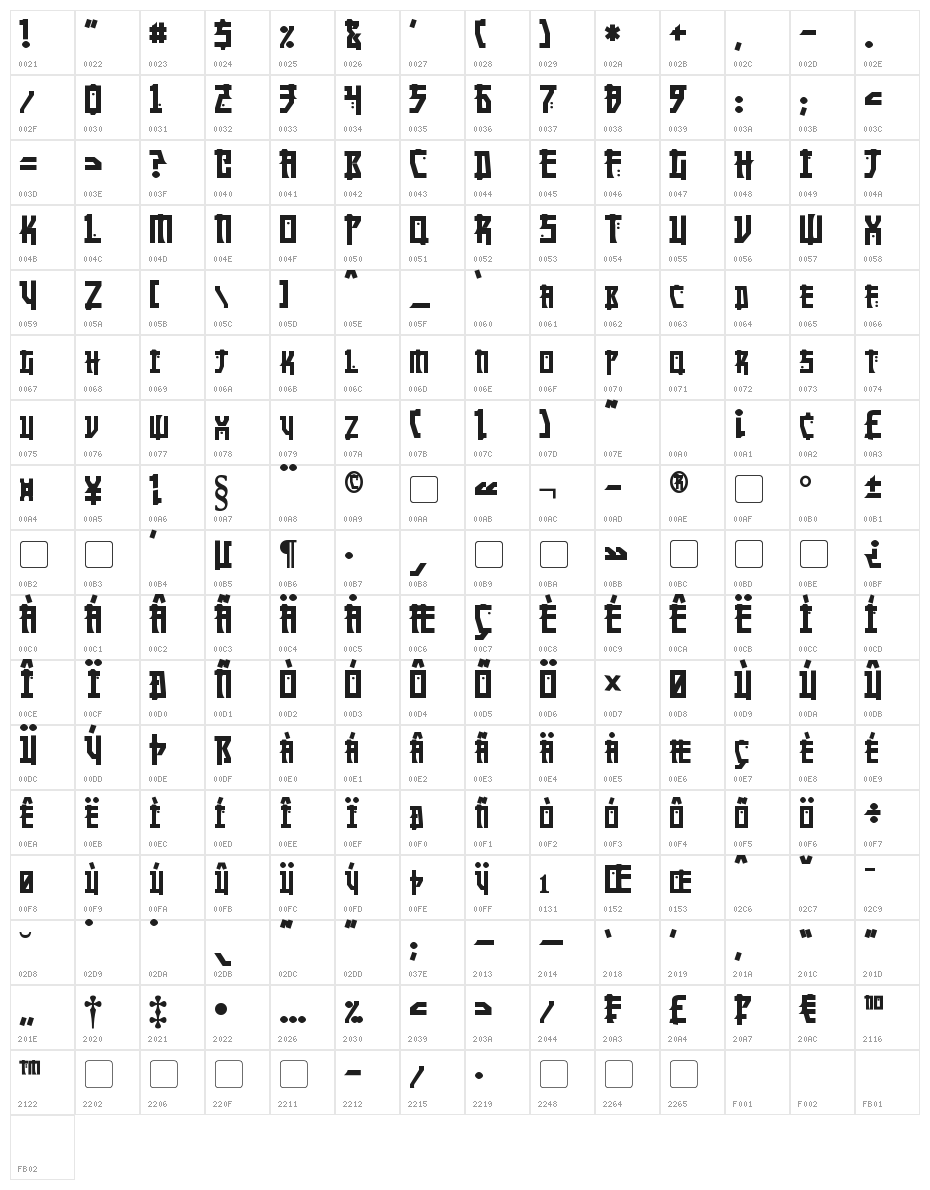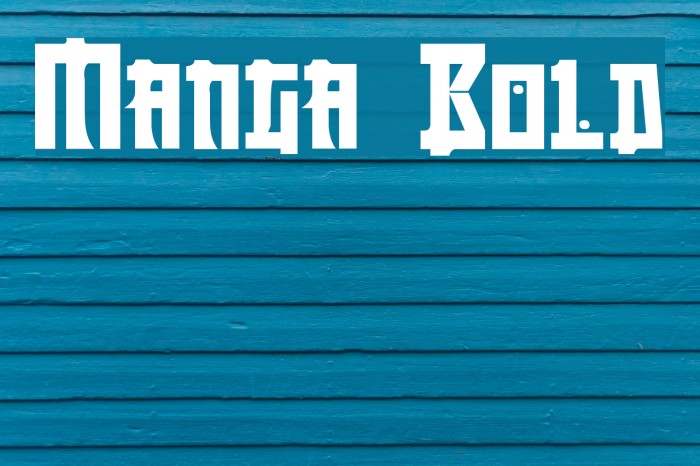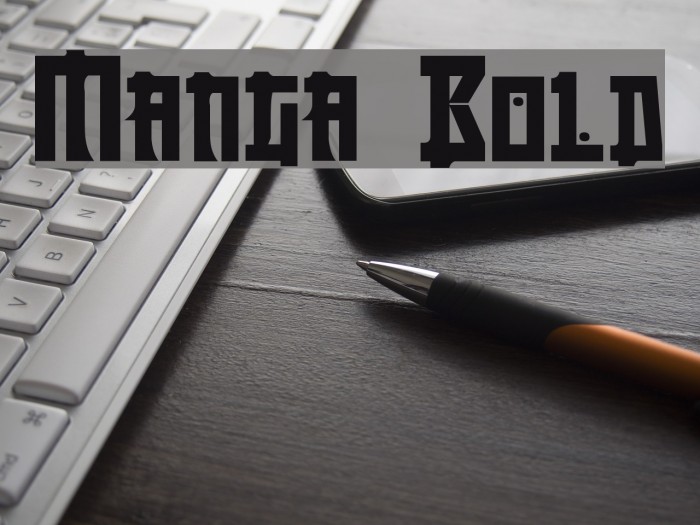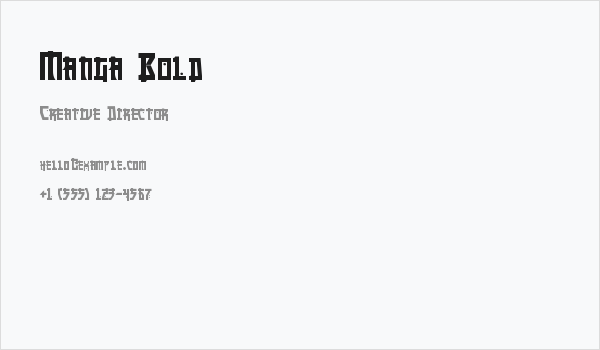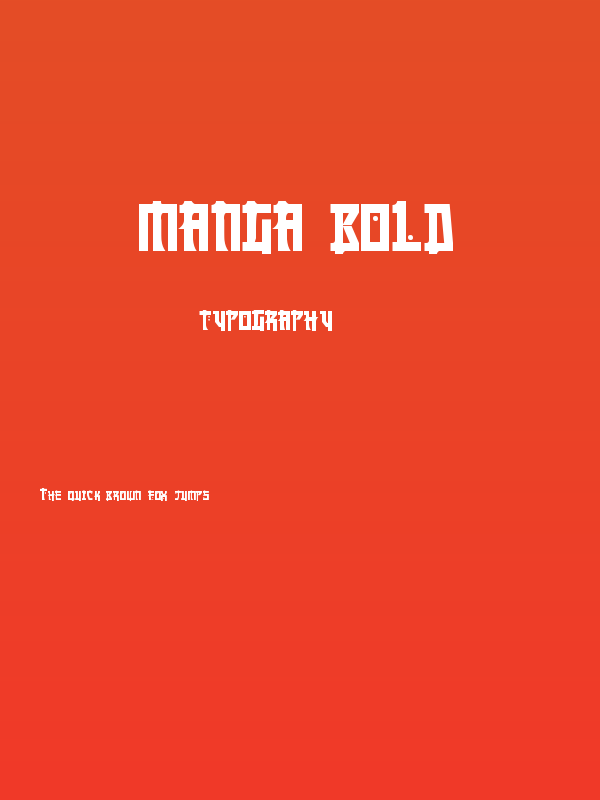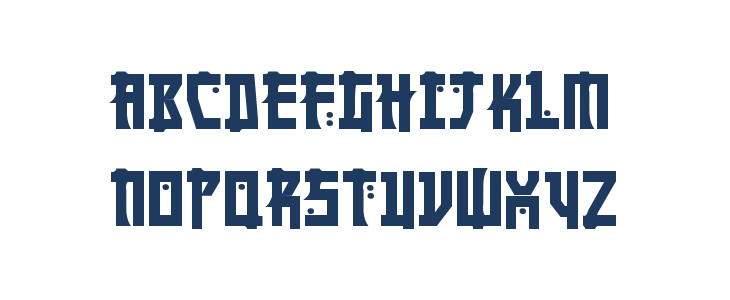
Manga Bold Font
Manga Bold Description
This bold and striking font features a unique, angular design with a futuristic and geometric aesthetic. The characters are constructed with thick, solid strokes that give them a strong presence. Each letter is distinct, with sharp edges and a blocky form that suggests a modern, digital influence. The font includes both uppercase and lowercase letters, numerals, and a variety of special characters, all maintaining a consistent style. The boldness of the font makes it highly legible and impactful, suitable for attention-grabbing headlines or titles.